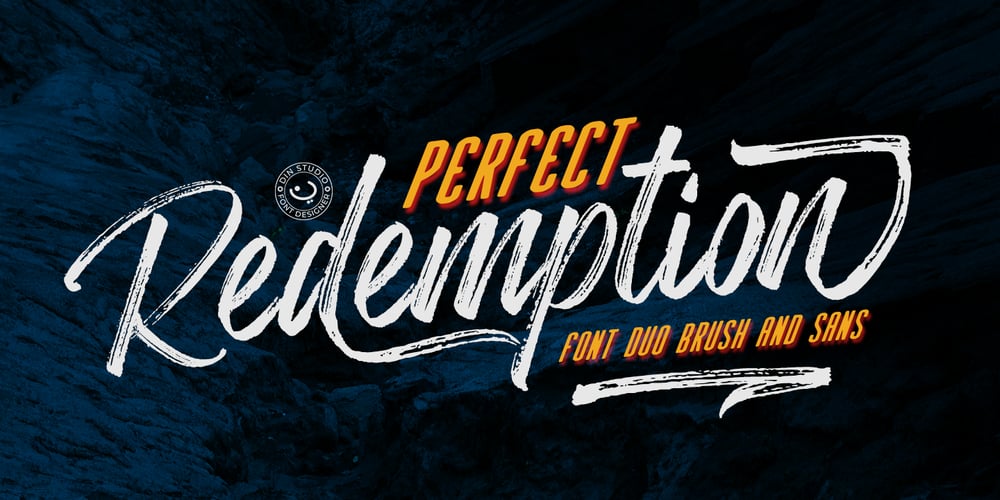
Perfect Redemption Font Family was designed by Donis Miftahudin and published by Din Studio. Perfect Redemption contains 4 styles and family package options. Introducing Perfect Redemption- Font Duo. Perfect Redemption is a brush font and combines with sans font. Made with naturally brush. The texture from the brush font will make your design more beautiful and powerful. This font is suitable for any design like branding, quotes, t-shirt printing and etc. Accents (Multilingual Characters) 64 Alternates 50 Extra Swashes PUA encoded Numerals and Punctuations (OpenType Standard) I hope you enjoy it !! Thanks for visiting and purchasing my font! Best Regards Donis M